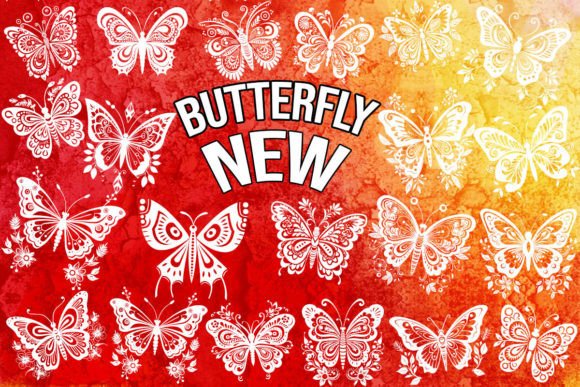
Introducing Butterfly New Font: the ultimate choice for Thai characters! Created by the talented MOMAT THIRTYONE, this dingbat font is a masterpiece that combines elegance and nature effortlessly. Get ready to be captivated by the enchanting world of Butterfly New.
With its 26 graceful letters and the mesmerizing number 10, Butterfly New Font transports you to a realm where the beauty of butterflies reigns supreme. Each character is meticulously crafted, showcasing the delicate allure of these magnificent creatures.
Butterfly New Font is more than just a typeface – it's a work of art that will elevate your creative projects to new heights. Whether you're designing an invitation, crafting a logo, or adding a touch of elegance to your website, this font is your secret weapon.
Imagine the impact of delicate butterfly-inspired letters gracing your wedding invitations. Picture the enchanting numbers gracefully adorning your brand's logo. With Butterfly New Font, your designs will exude a unique charm that captures attention and leaves a lasting impression.
Not only does Butterfly New Font offer stunning visuals, but it also provides endless possibilities for customization. Add a touch of magic to your designs by experimenting with different colors, sizes, and styles. Let your imagination run wild and watch as Butterfly New Font transforms your creative visions into reality.
The versatility of Butterfly New Font knows no bounds. It effortlessly blends with various design styles, from modern and sleek to vintage and whimsical. No matter the theme or concept, this font adapts seamlessly, ensuring your message is conveyed with elegance and flair.
Butterfly New Font is a must-have for anyone seeking to infuse their projects with beauty, sophistication, and a touch of nature's whimsy. Join countless designers, artists, and creatives who have already discovered the magic of this captivating typeface.
Experience the metamorphosis of letters and numbers into exquisite works of art with Butterfly New Font. Let your designs take flight and leave a lasting impression on your audience. Download Butterfly New Font today and unlock a world of endless creative possibilities.